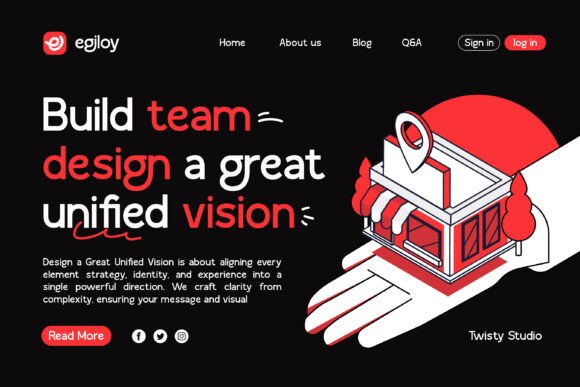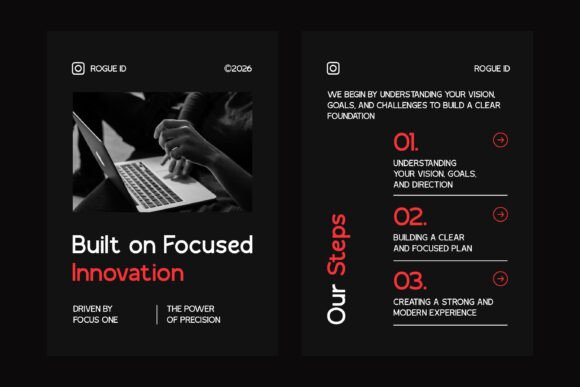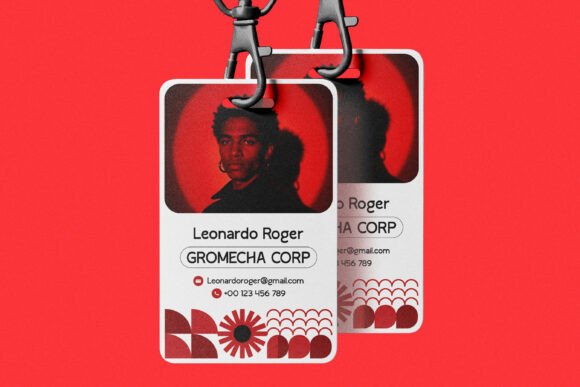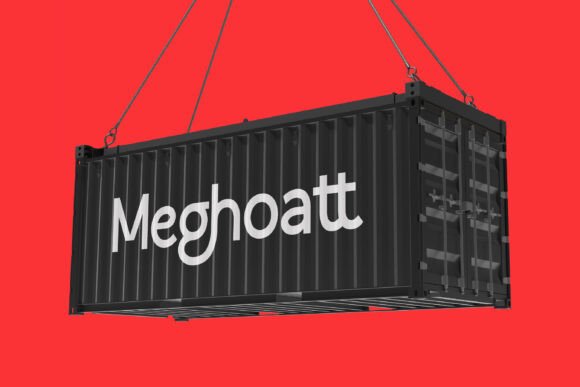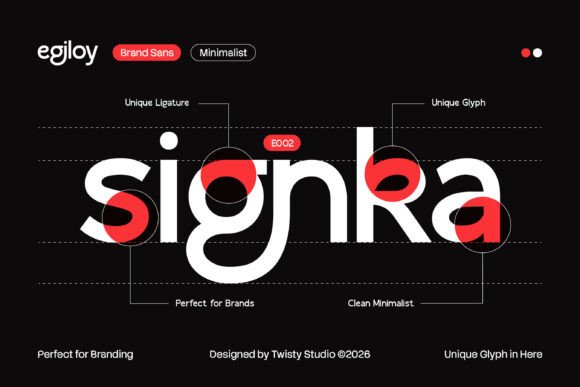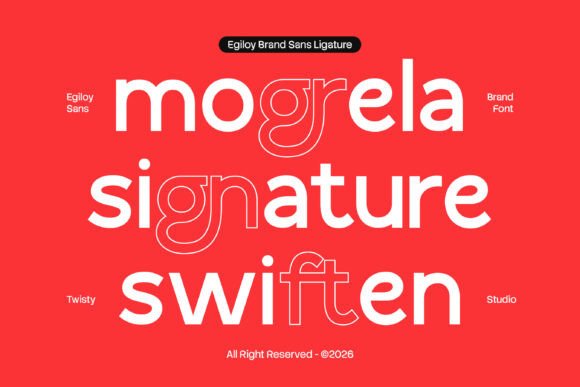
I still remember the frustration of working on a branding project for a client who wanted a clean, modern aesthetic. I scoured the internet for the perfect font, only to be overwhelmed by the endless options. That was until I stumbled upon Egiloy, a game-changing sans typeface that brought clarity, precision, and a refined modern look to my design.
Egiloy: A Breath of Fresh Air in Typography
Egiloy is a clean minimalist brand sans typeface designed to deliver clarity, precision, and a refined modern aesthetic. With its simple forms, balanced proportions, and subtle detailing, Egiloy creates a calm and professional visual tone that feels both contemporary and timeless. Built with branding in mind, this typeface emphasizes readability and consistency, making it highly effective across a wide range of applications.
So, what makes Egiloy stand out from the rest? Here are some things I love about this font:
- ✨ Clean and minimalist design: Egiloy’s simple forms and balanced proportions make it perfect for branding and advertising.
- ✅ Excellent readability: This font is designed to be easy on the eyes, making it perfect for body text and long-form content.
- 💡 OpenType features: Egiloy supports a range of OpenType features, including stylistic alternates and glyphs, giving you more creative control.
And, like any font, Egiloy isn’t perfect. Here are a few quirks to keep in mind:
- 🤔 Limited character set: Egiloy doesn’t support a wide range of languages, so make sure to check the character set before using it for multilingual projects.
- ⚠️ Not ideal for body text: While Egiloy is great for headings and titles, it may not be the best choice for long-form body text.
The Story Behind Egiloy
Egiloy was designed with the goal of creating a clean and modern sans typeface that would deliver clarity and precision. The designer, inspired by the simplicity and elegance of traditional typography, aimed to create a font that would feel both contemporary and timeless.
| Author | Twistystd |
| What is Egiloy? | Egiloy is a clean minimalist brand sans typeface designed for clarity, precision, and a refined modern aesthetic. |
| What are the benefits of using Egiloy? | Egiloy offers excellent readability, a clean and modern design, and support for OpenType features like stylistic alternates and glyphs. |
| Can I use Egiloy for body text? | While Egiloy is great for headings and titles, it may not be the best choice for long-form body text. |
| Is Egiloy suitable for multilingual projects? | Egiloy has a limited character set, so it’s best to check the character set before using it for multilingual projects. |